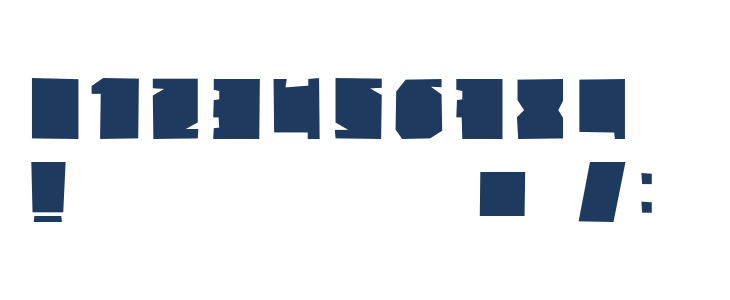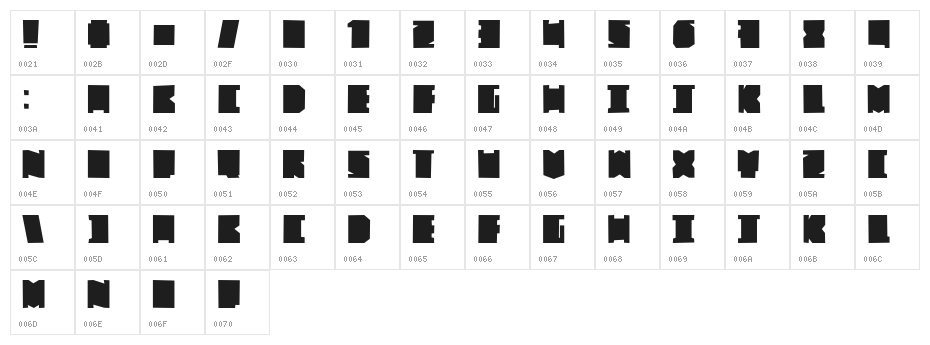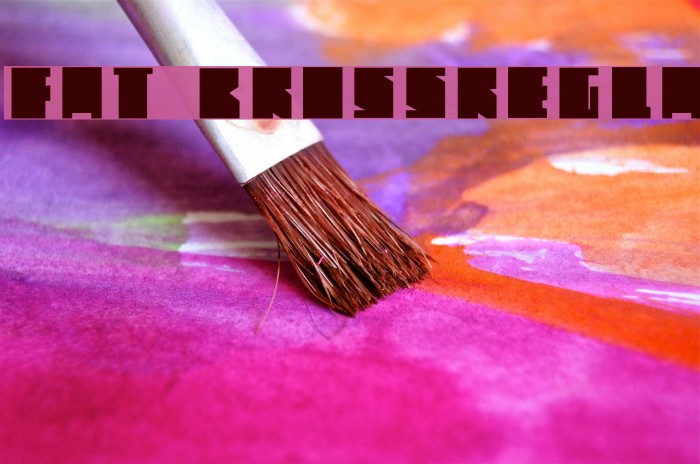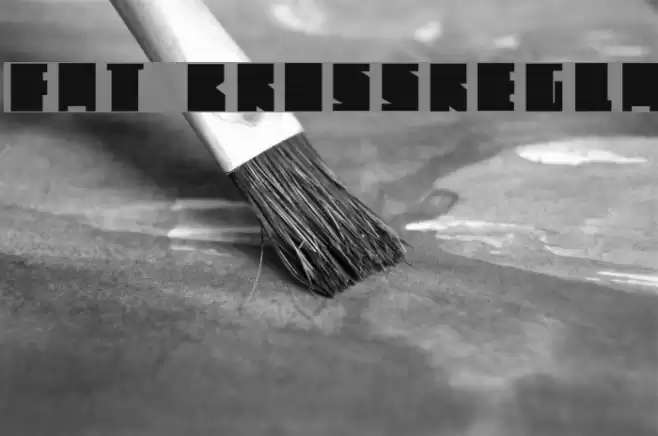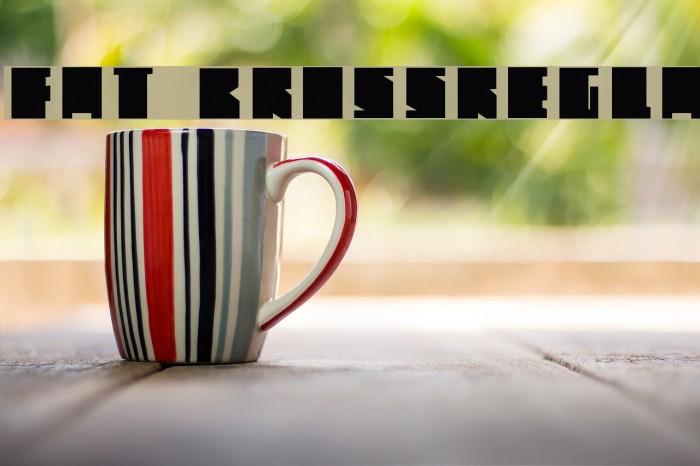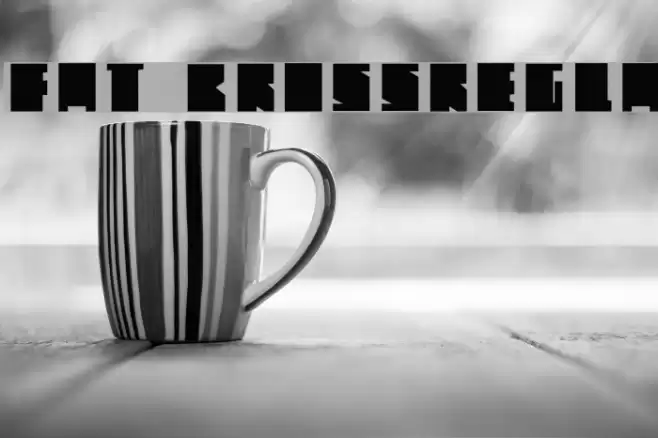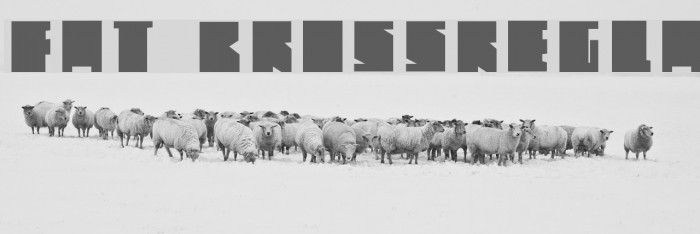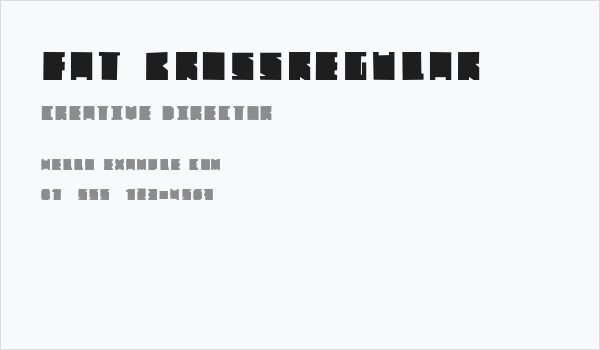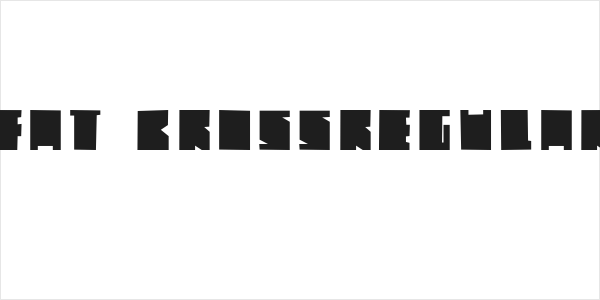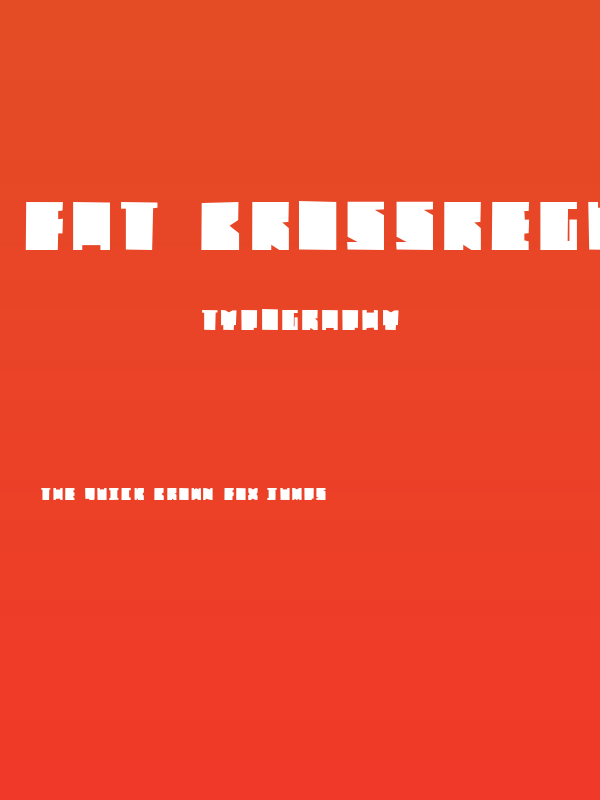
FAT BROSSRegular Font
FAT BROSSRegular Description
This font features a bold and geometric style with a strong presence. Each character is constructed with thick, block-like shapes, giving it a robust and impactful appearance. The angular cuts and sharp edges contribute to its modern and industrial aesthetic. The uppercase and lowercase letters maintain a consistent weight, while the numbers and special characters follow the same design principles, ensuring uniformity across all glyphs. This font is ideal for projects that require a striking and attention-grabbing typeface.